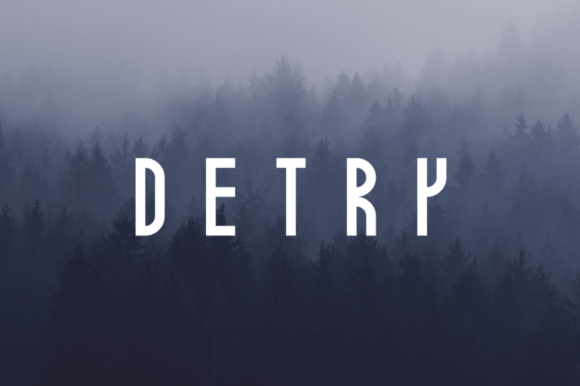
Introduction to Detry Font
Detry is a modern and chic sans serif font.
Key Features of Detry Font
Why Choose Detry Font?
Detry Font offers exceptional quality and versatility, making it a valuable addition to your design toolkit. Whether you’re creating for personal projects or commercial use, Detry Font delivers professional results.